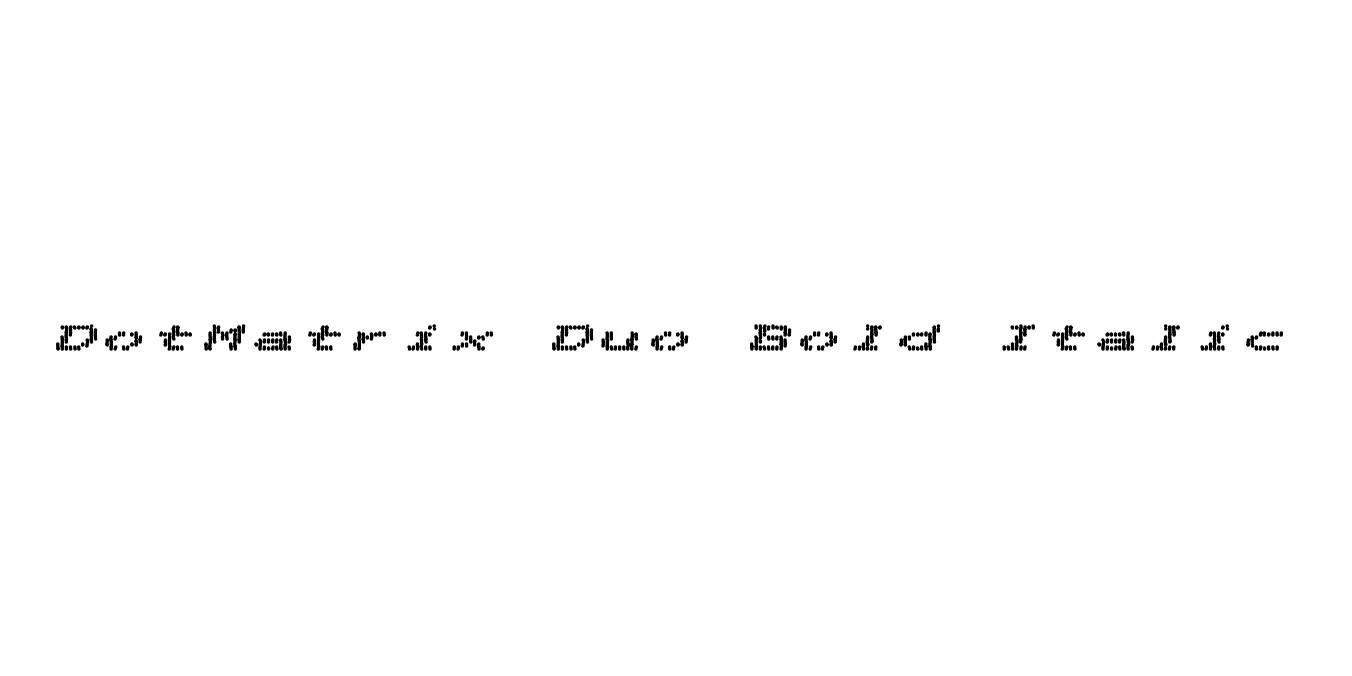
DotMatrix Duo Bold Italic
Designed by Neale Davidson (Pixel Sagas)
DotMatrix Duo Bold Italic is a specialized typeface inspired by the vintage aesthetic of early computing and industrial output devices. Its design mimics the physical constraints of pin-fed impact printers and LED display panels from the late 20th century, where characters were formed by a specific grid of circular dots. This 'Duo' variant features a unique layered appearance, providing a sense of depth and density that was uncommon in standard monochromatic dot matrix fonts.
The Bold Italic style adds a dynamic sense of motion and emphasis to the traditional rigid structure of bitmap fonts. By slanting the circular modules and increasing the dot weight, the typeface bridges the gap between mechanical digital readouts and modern graphic design. It is widely utilized for its high legibility in digital formats while maintaining a distinct retro-tech charm that appeals to nostalgia-driven projects and technical documentation alike.
DotMatrix Duo Bold Italic Best Uses
Ideal for retro-style HUDs, menu interfaces, and pixel-art game titles.
Perfect for digital clocks, live counters, or tech-focused dashboard headers.
Effective for logos requiring a futuristic or vintage computing aesthetic.
Great for industrial or electronic product labels and technical instruction manuals.